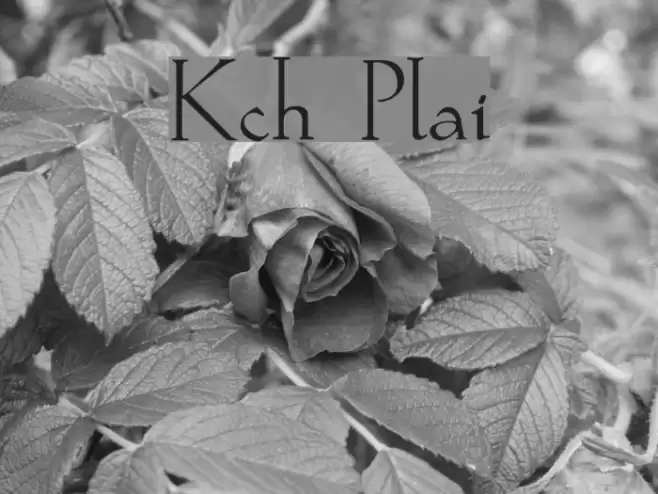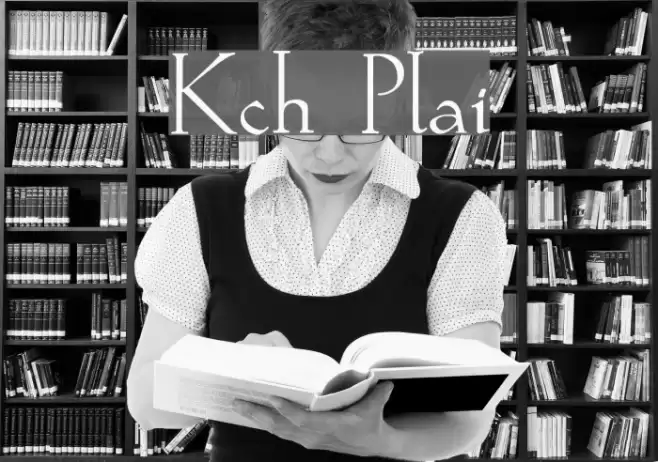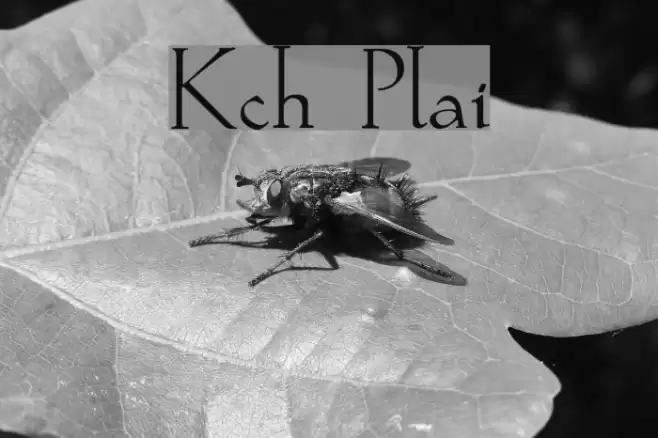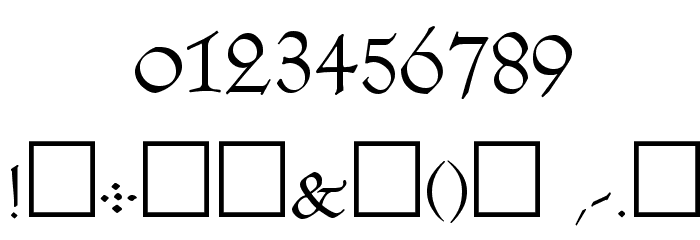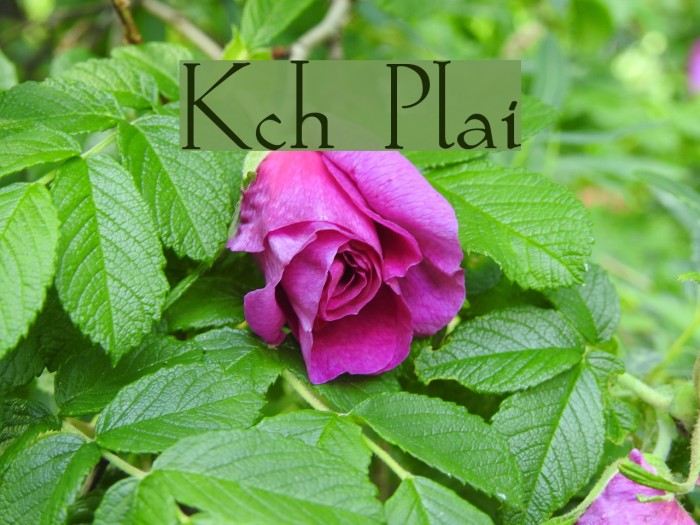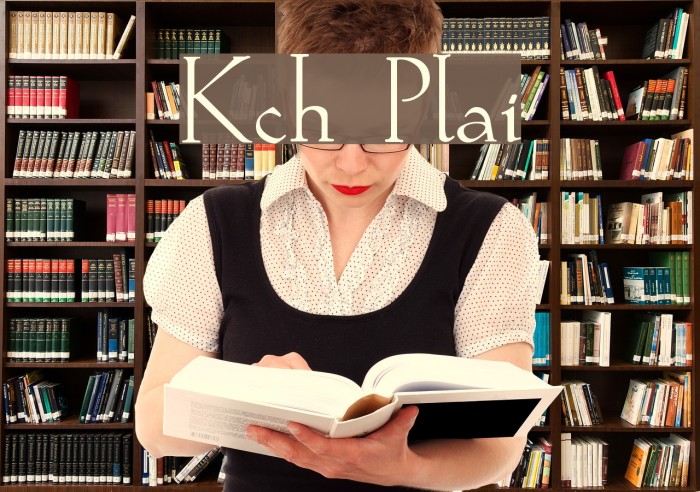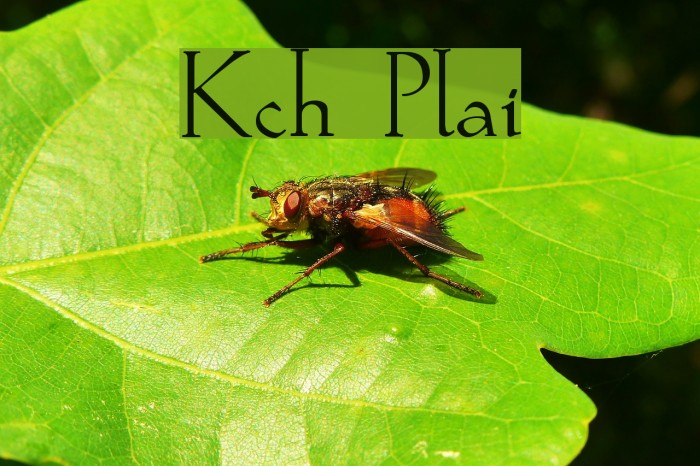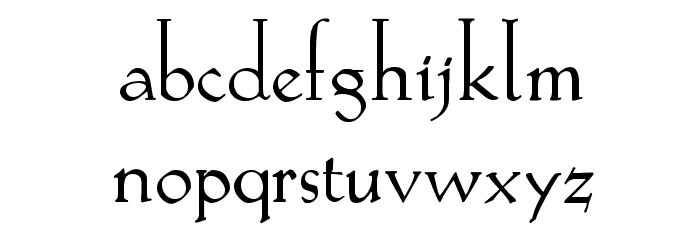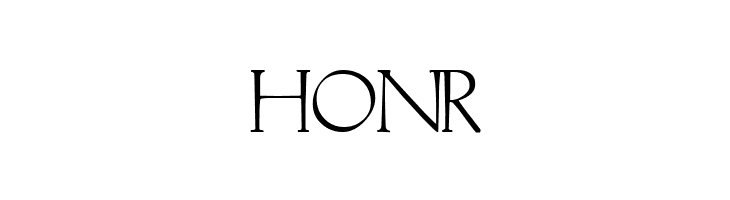
Koch Plain Font
Koch Plain Description
This font features a unique blend of classic and modern elements, characterized by its sharp, angular serifs and clean lines. The uppercase letters exhibit a strong presence with a slight flair in the serifs, while the lowercase letters maintain a consistent style with a touch of elegance. The numerals are distinct and easily readable, complementing the overall design. Special characters are crafted with precision, adding to the font's versatility. This typeface is well-suited for projects that require a sophisticated yet approachable aesthetic.
A classic serif font with sharp, angular serifs and clean lines from Script fonts.
- Overall Style: Classic